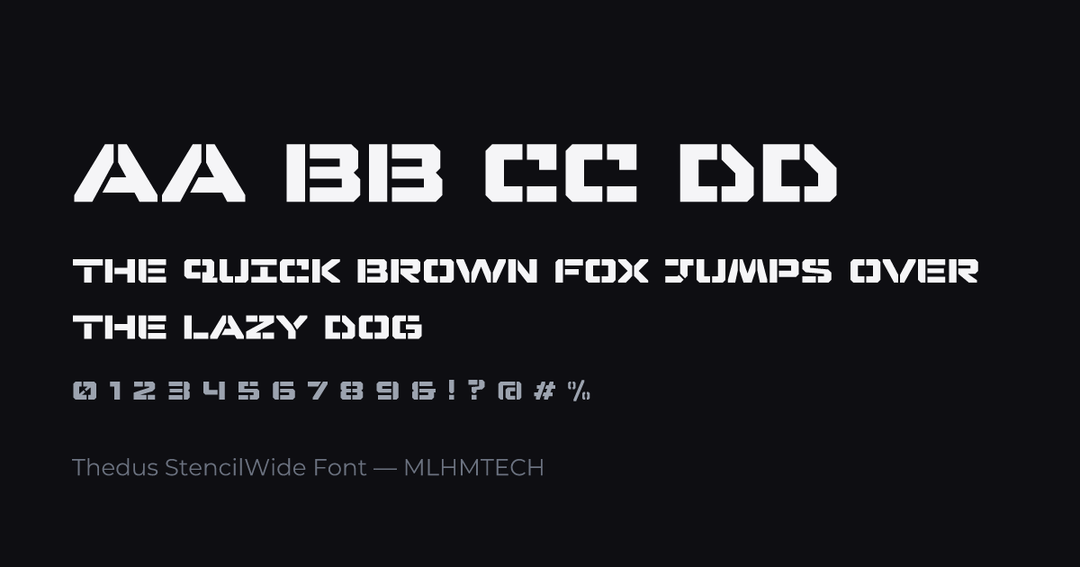
Thedus StencilWide Font
Thedus StencilWide is a bold, industrial stencil font that adds an urban edge to any project. Ideal for posters, logos, and headlines.
Thedus StencilWide is a striking display font characterized by its wide, stencil-style letterforms. Its bold, industrial aesthetic makes it perfect for projects that need a strong, urban, or military-inspired look. The font's clean lines and high legibility ensure it stands out in headlines, posters, and branding materials.